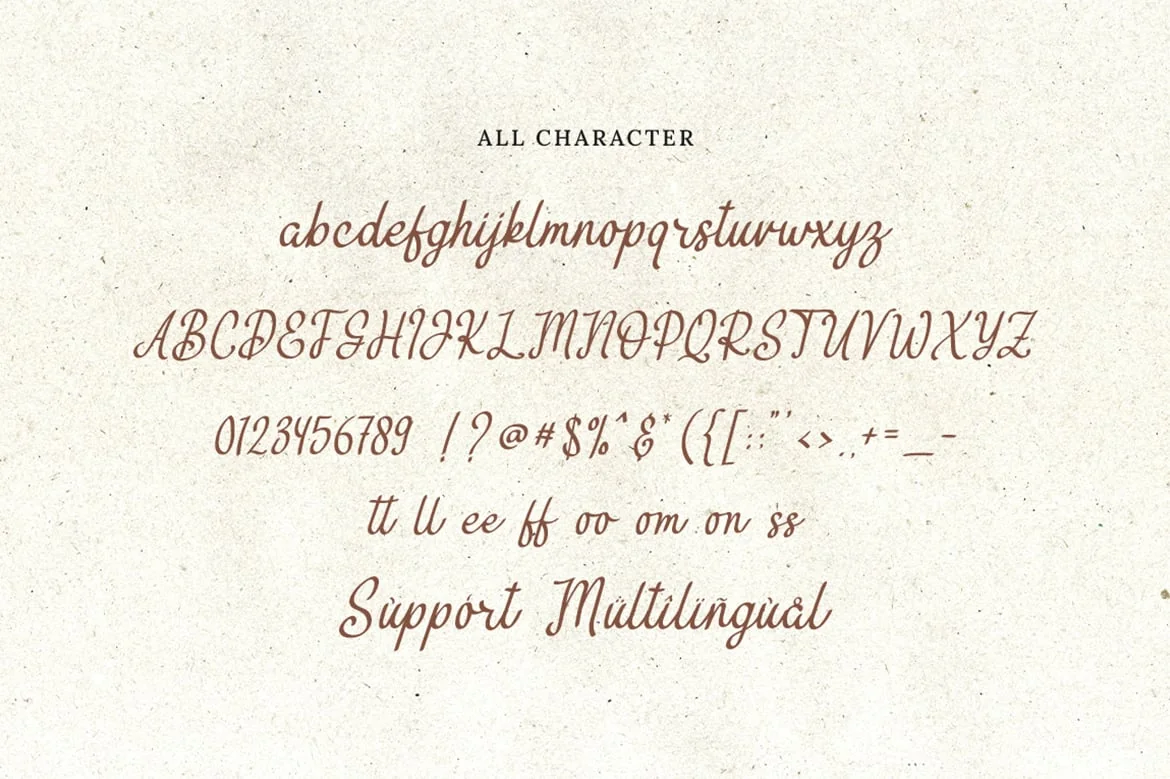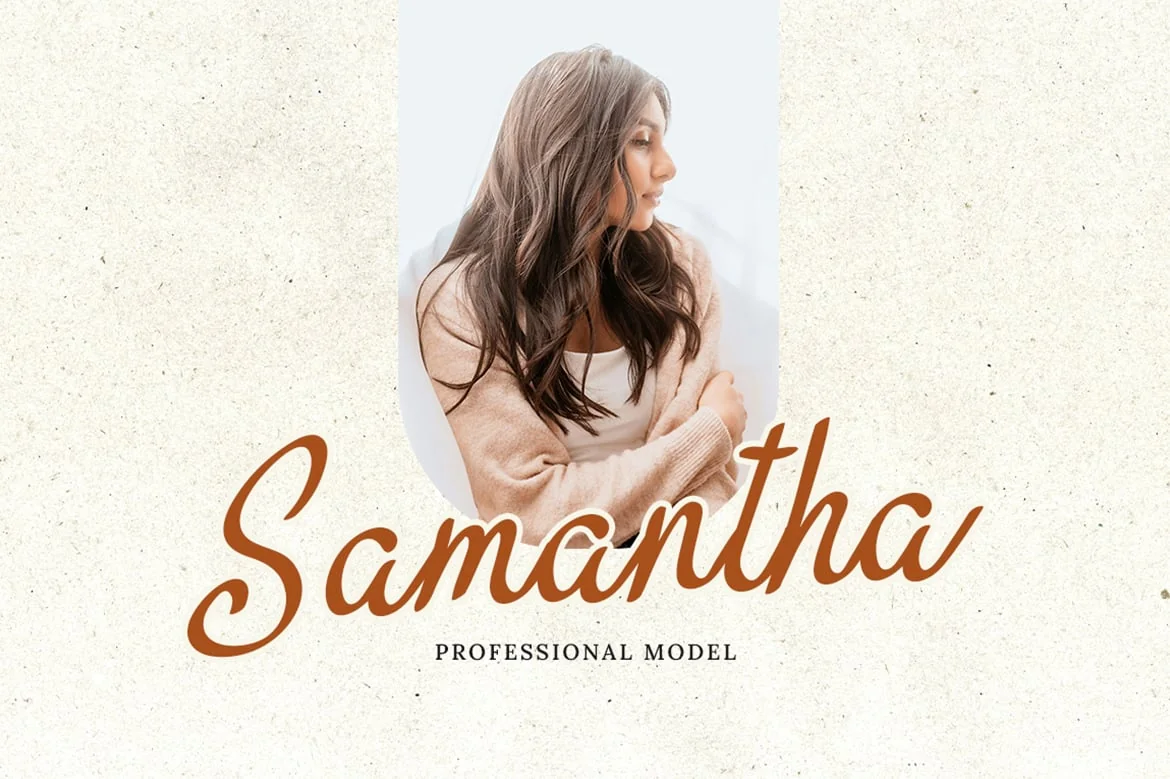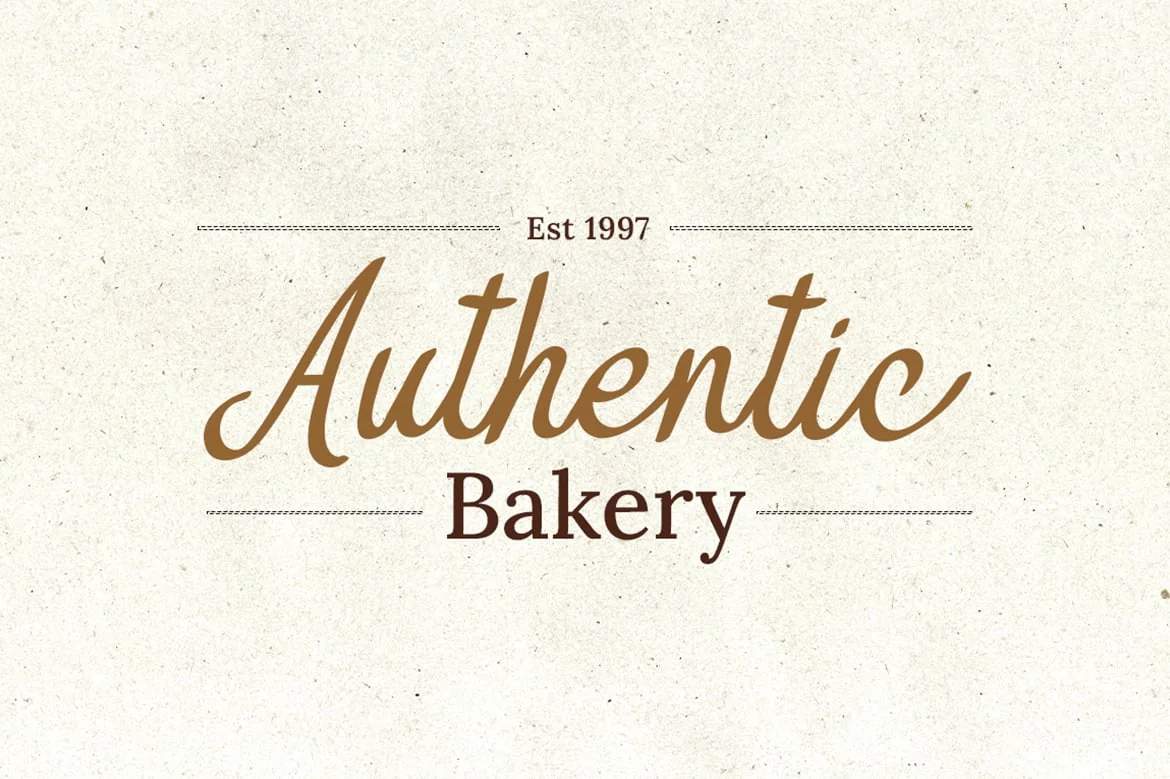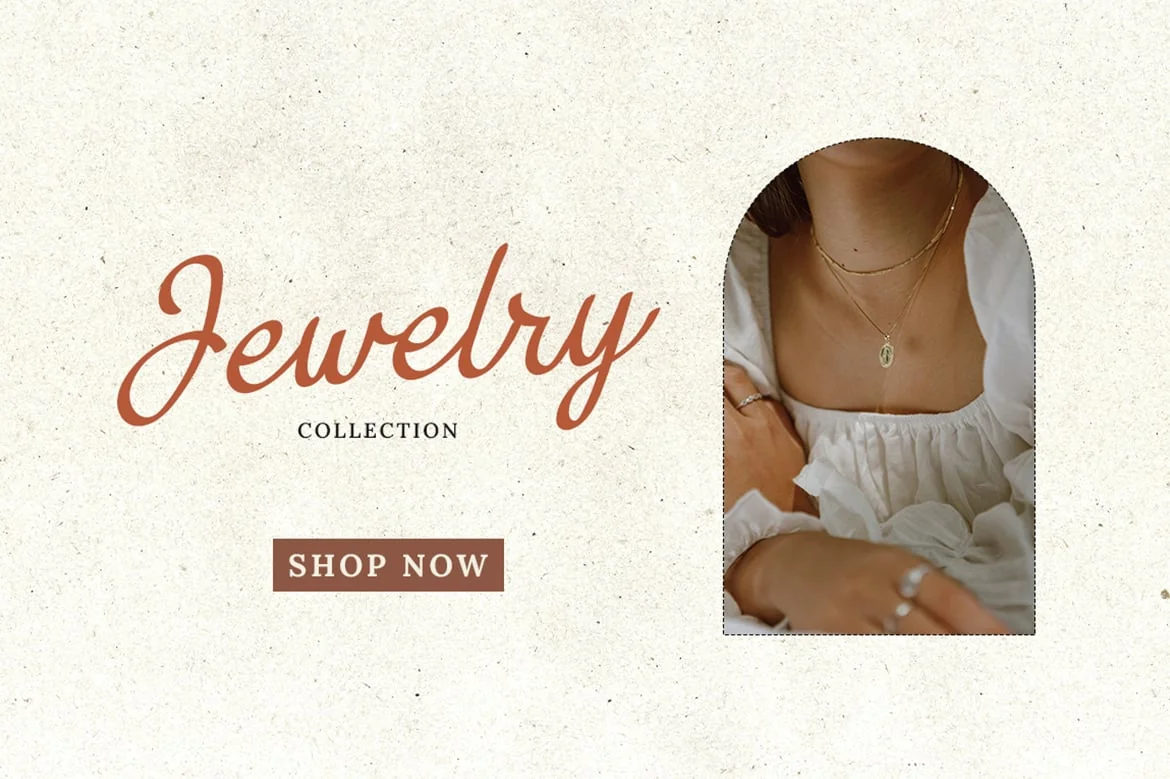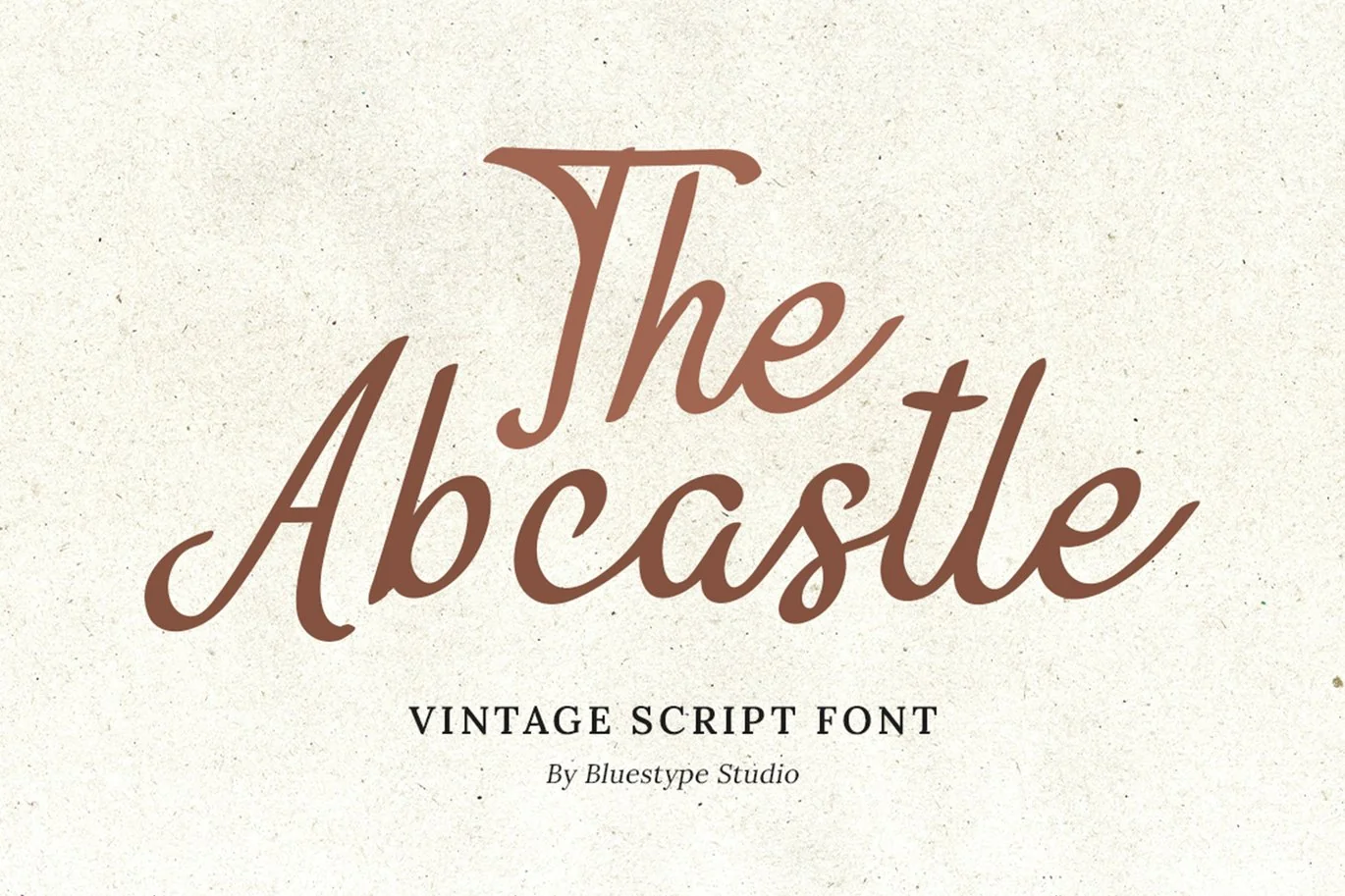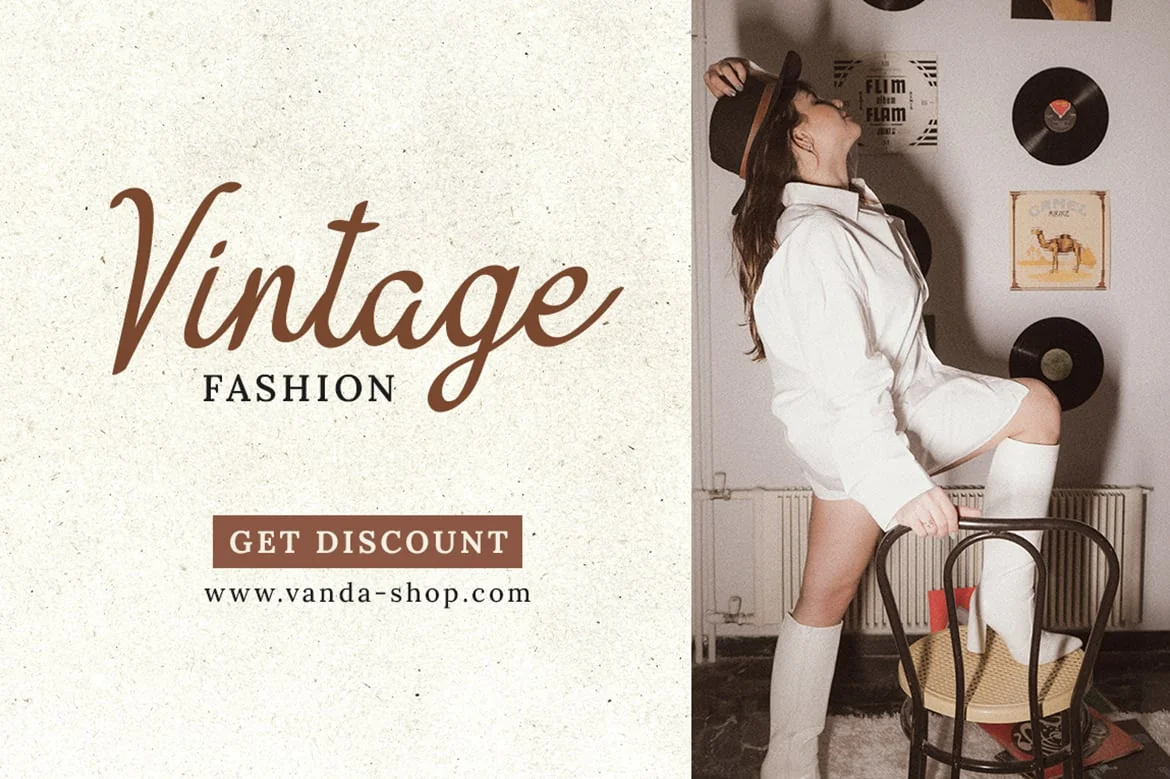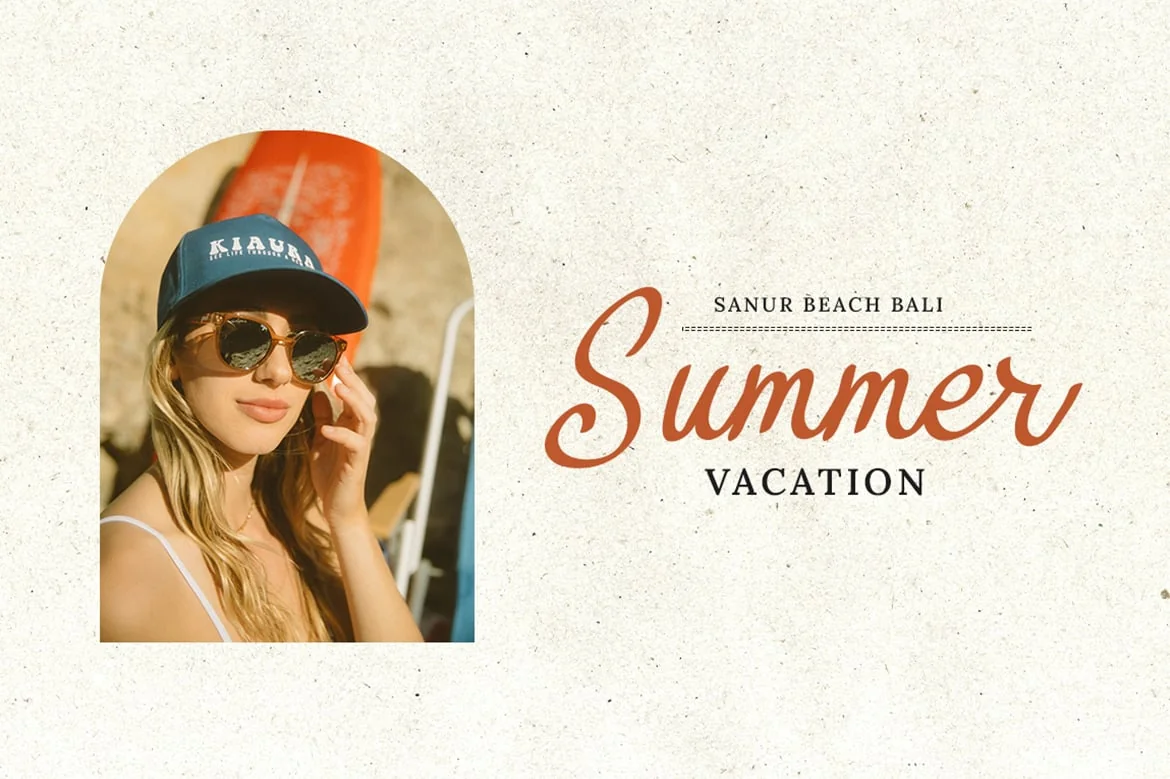
The Abcastle – Vintage Lettering Font
The Abcastle font embodies the essence of vintage script with an elegant flair. Its timeless charm and intricate details evoke a sense of nostalgia, reminiscent of classic handwritten scripts from bygone eras. Each letter is meticulously crafted, exuding sophistication and refinement. The Abcastle font adds a touch of old-world charm to any design, lending a sense of elegance and prestige to your projects.